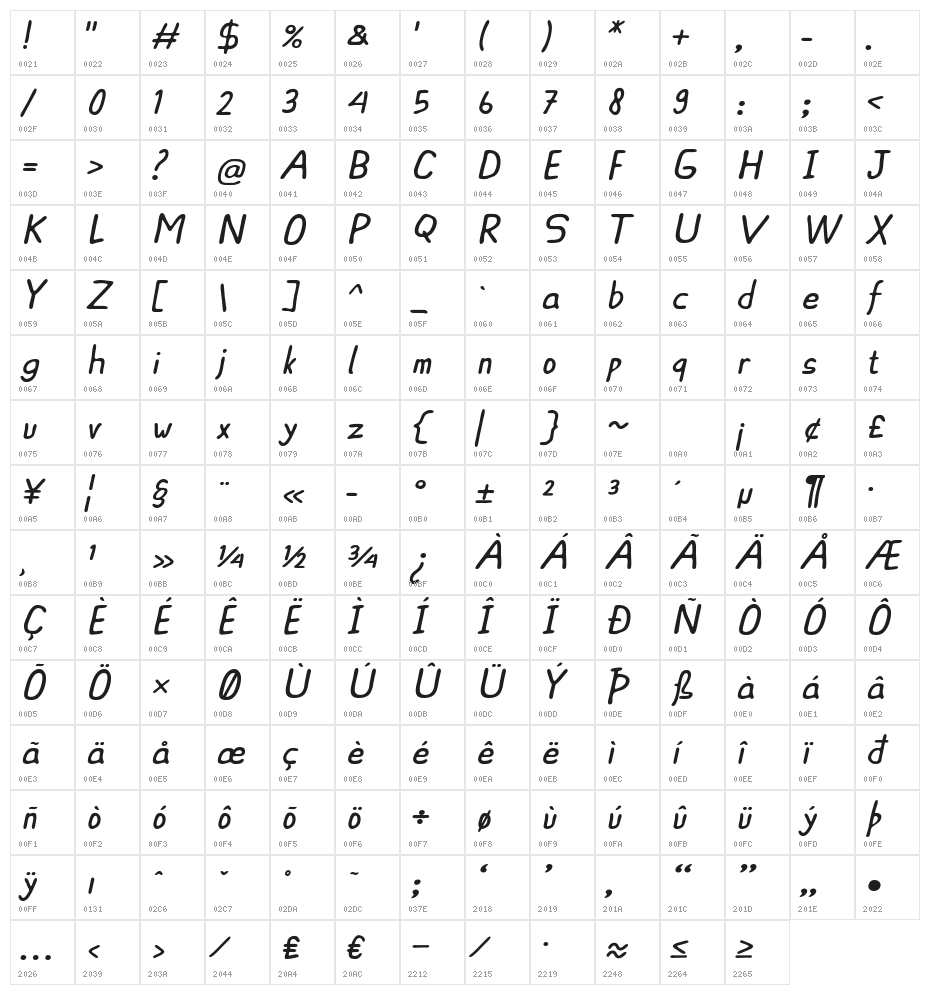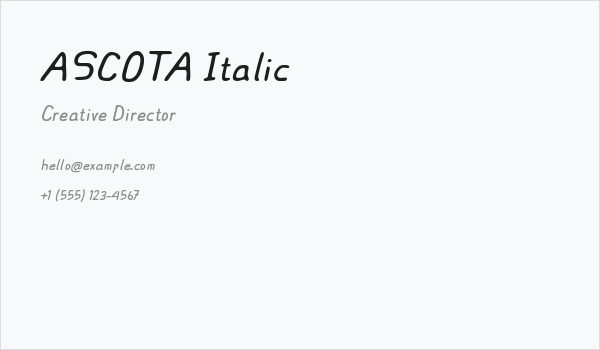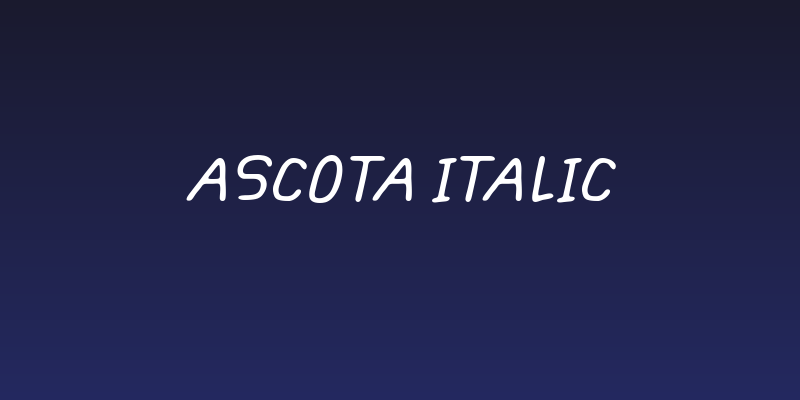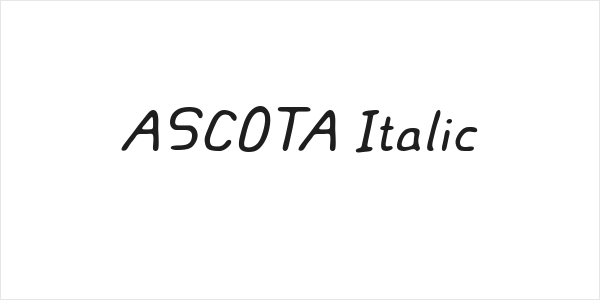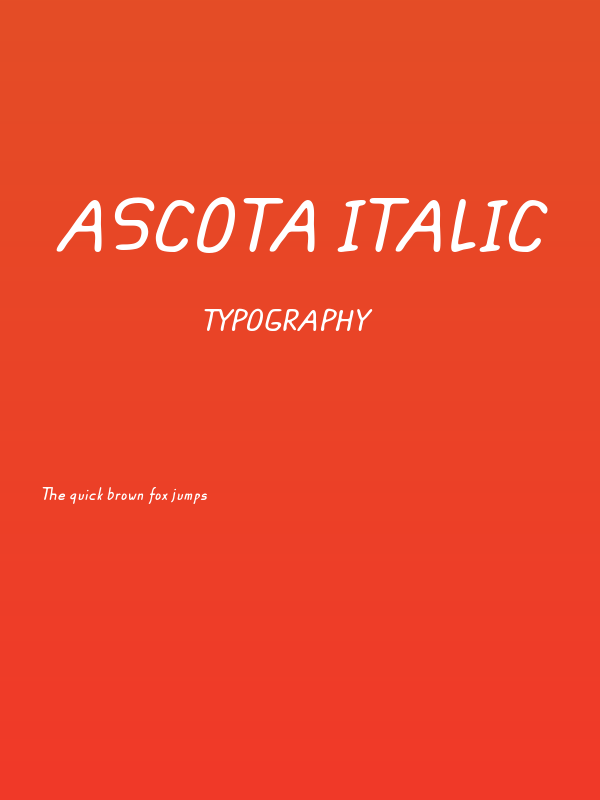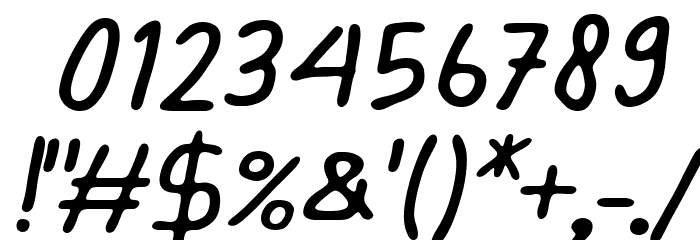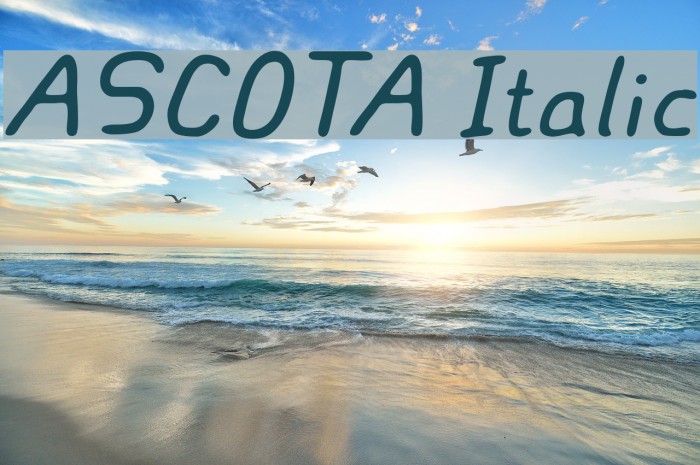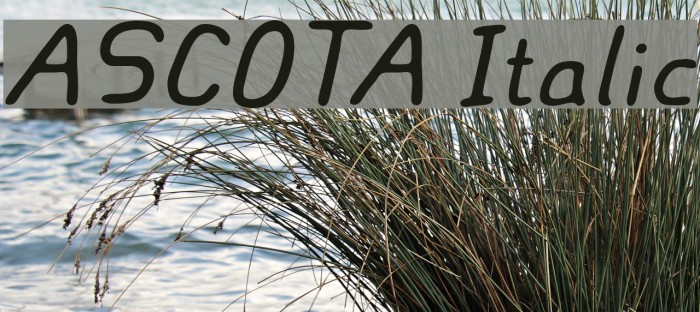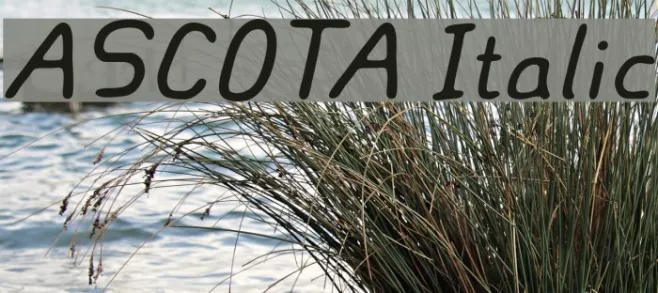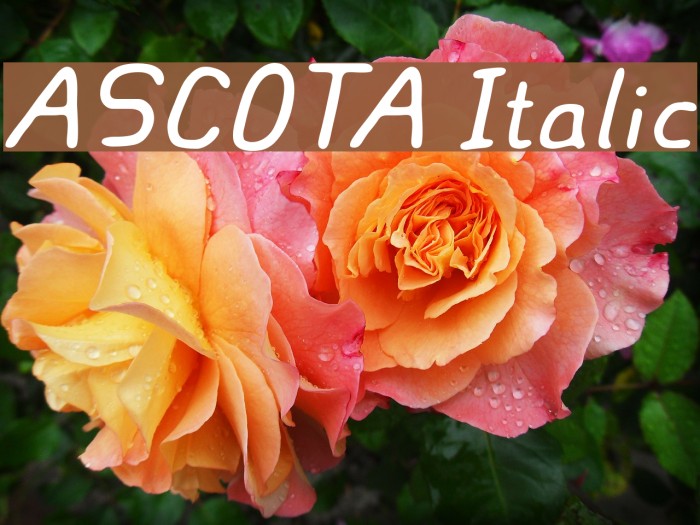
ASCOTA Italic Font
ASCOTA Italic Description
This font features a playful and dynamic style with a handwritten appearance. The letters are slightly slanted, giving an italicized look that adds a sense of movement and energy. The strokes are smooth and consistent, with rounded edges that contribute to its friendly and approachable feel. The uppercase and lowercase letters maintain a cohesive design, while the numerals and special characters are crafted to match the overall aesthetic. This font is versatile and can be used in various contexts where a casual and informal tone is desired.
| Proposed Projects | Ideal for greeting cards, children's books, casual branding, and social media graphics. |